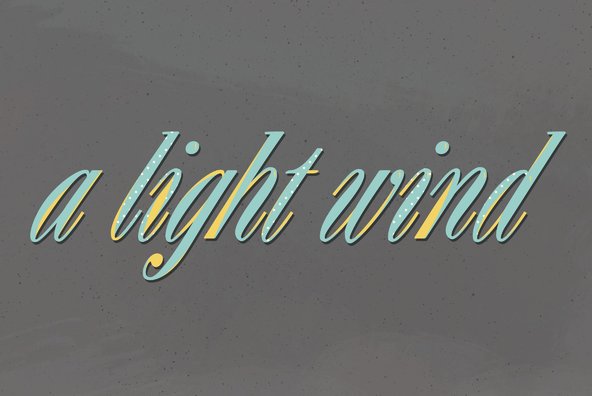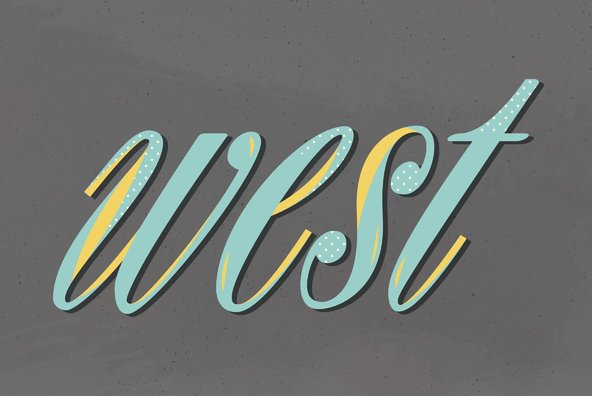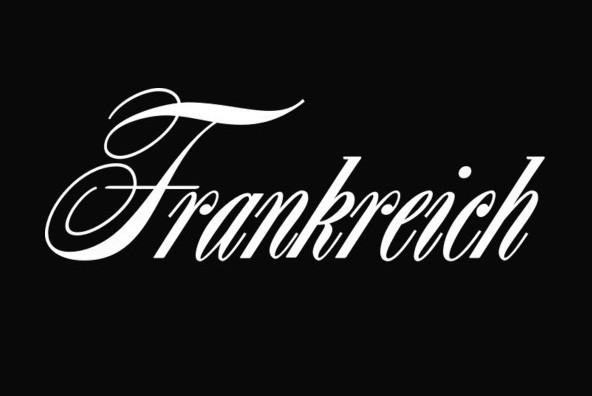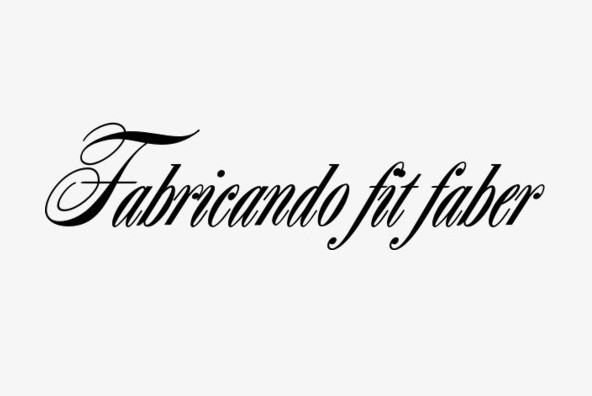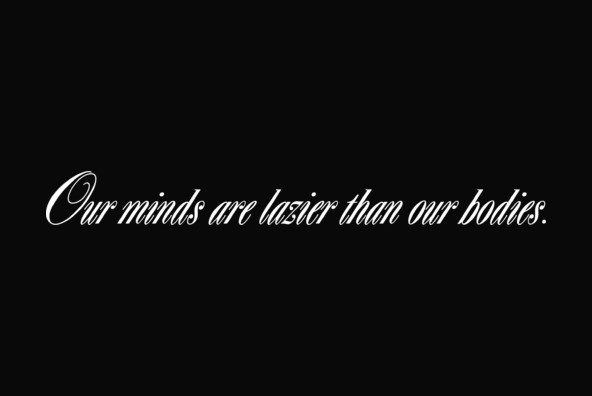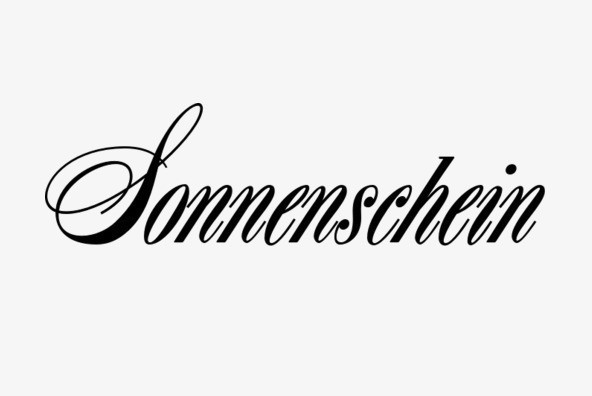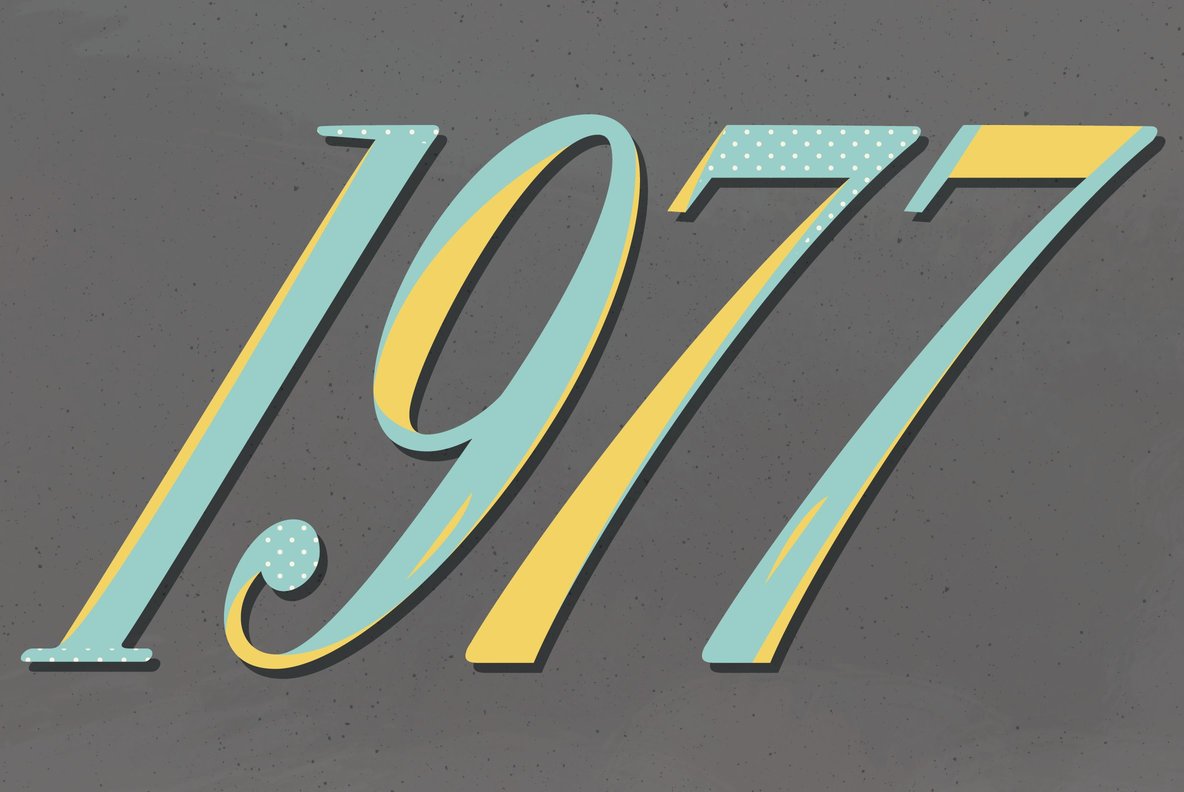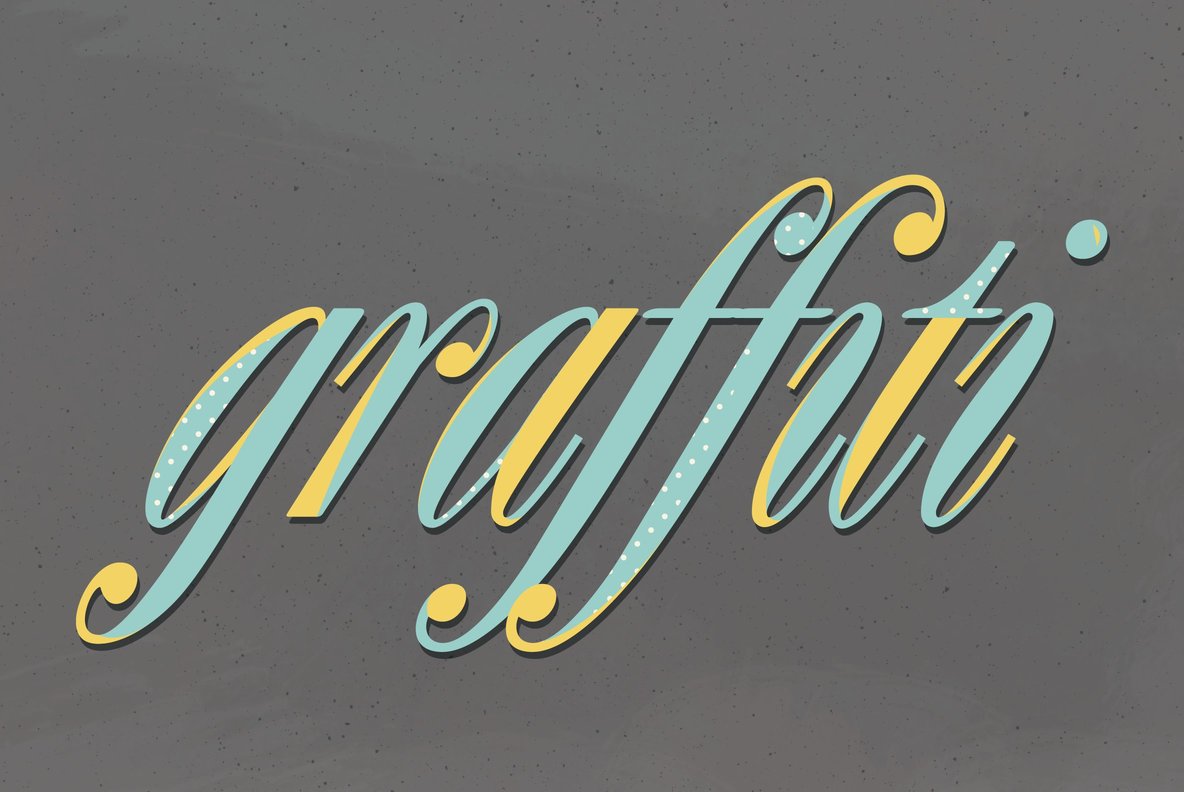
Filmotype Zephyr
Foundry: Filmotype
Filmotype Zephyr combines the elegant script capital forms with a classic condensed italic roman to create a smart and stylish typeface.
Originally released in the early 1950s, Filmotype Zephyr has been meticulously redrawn from the original font filmstrips and has been enhanced to include a full international character compliment, automatic fractionals, ordinals, and a host of alternate characters in dynamic OpenType format.